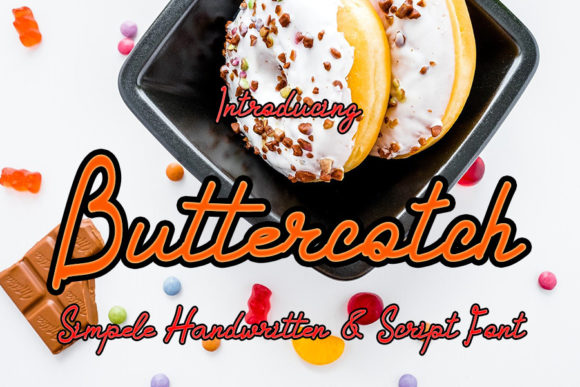
Introducing Buttercotch: The Enchanting Script Font That Unleashes Your Creativity
Embark on a magical journey into the realm of typography with Buttercotch, a script font that dances gracefully across your screen. Inspired by the whimsy of handwritten notes, this font captures the warmth and romance of cherished memories.
Crafted with meticulous attention to detail, Buttercotch's curves flow seamlessly, inviting you to express your unique style. Its versatility knows no bounds, seamlessly adapting to any project you envision. Whether you're penning heartfelt letters, designing captivating invitations, or creating stunning social media graphics, Buttercotch will effortlessly elevate your vision.
Experience the joy of endless possibilities as you immerse yourself in Buttercotch's embrace. Its playful spirit sparks inspiration, encouraging you to explore the depths of your imagination. From delicate personal touches to bold artistic statements, this font empowers you to let your creativity soar.
Embrace the magic of Buttercotch today and watch your words transform into captivating works of art. Its allure will draw your audience in, leaving an unforgettable impression that lingers long after they've turned the page. Unleash the power of Buttercotch and let your creativity bloom!